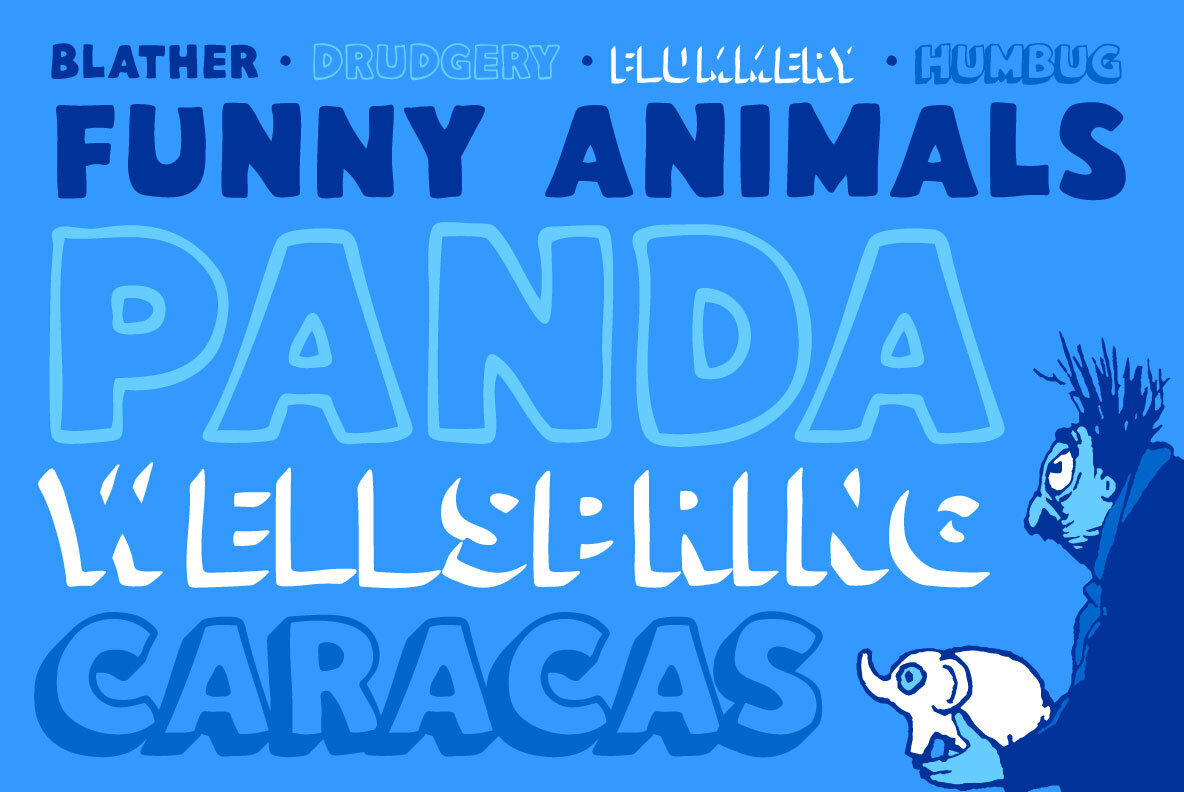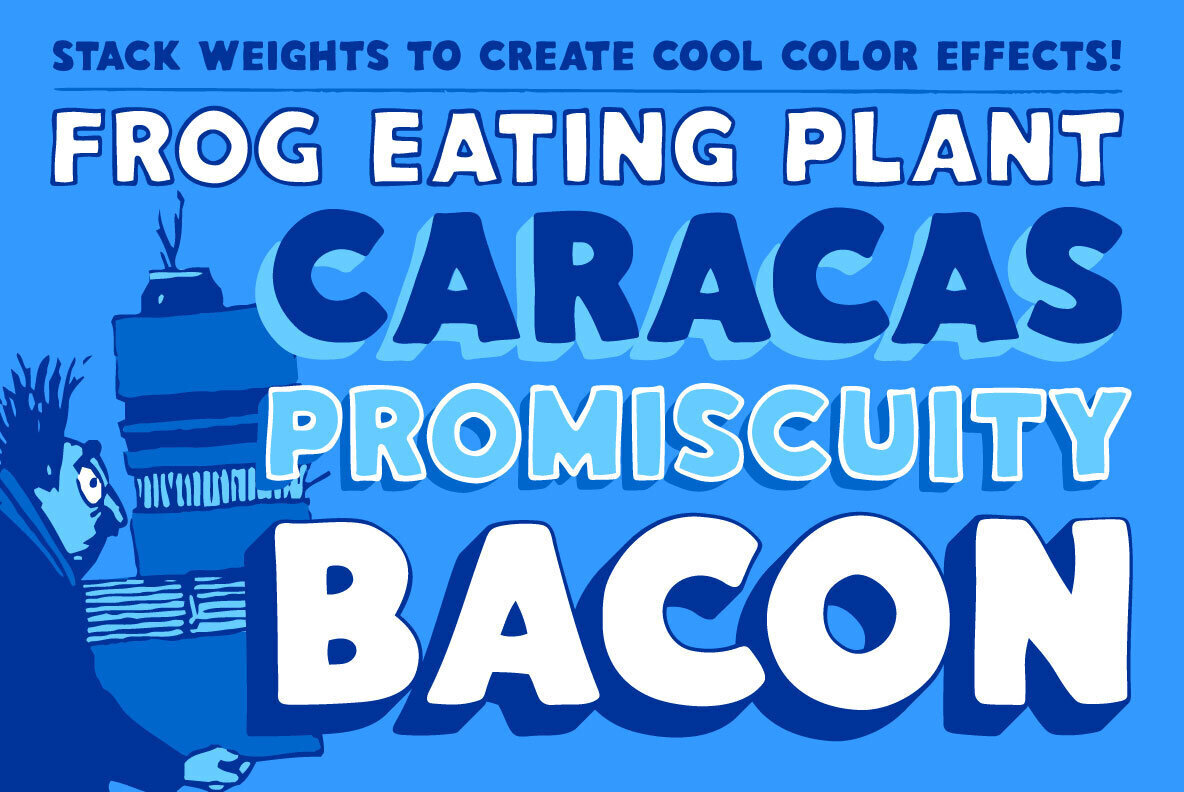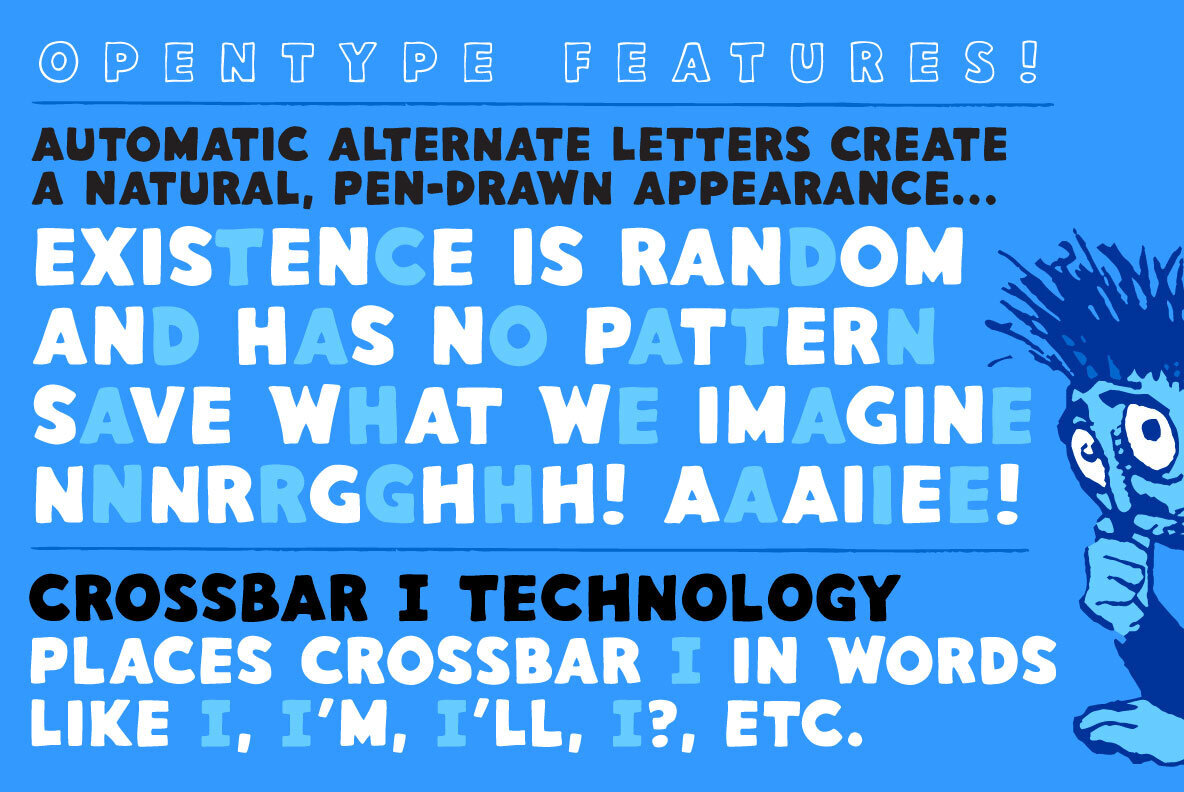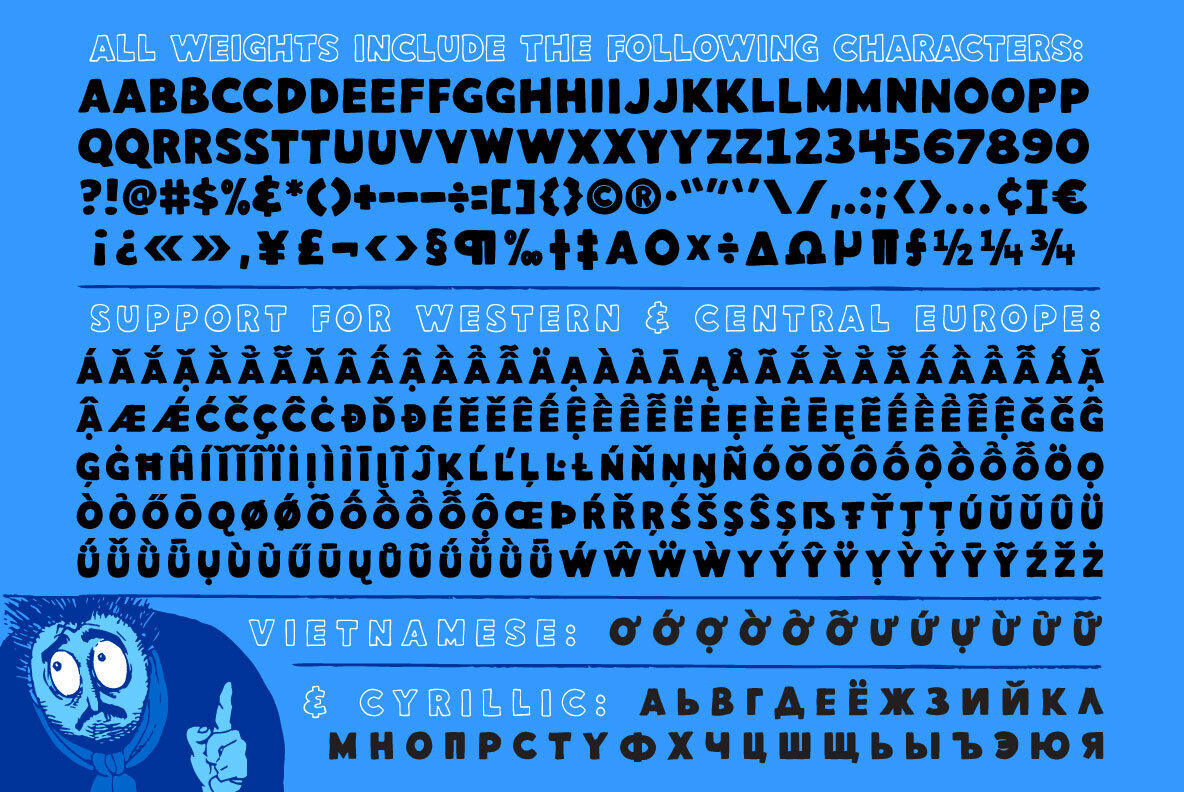
Mr. Mamoulian is a friendly, yet slightly neurotic, font family based on the display lettering of British comic book legend Brian Bolland. The weights of Mr. Mamouilan have been carefully aligned to be layered to create cool 3D color effects. Don't forget to use the new outline + drop shadow weight… HUMBUG!
Each weight of Mr. Mamoulian includes automatic alternate letters, European, Vietnamese & Cyrillic language support, and our beloved Crossbar I Technology™.